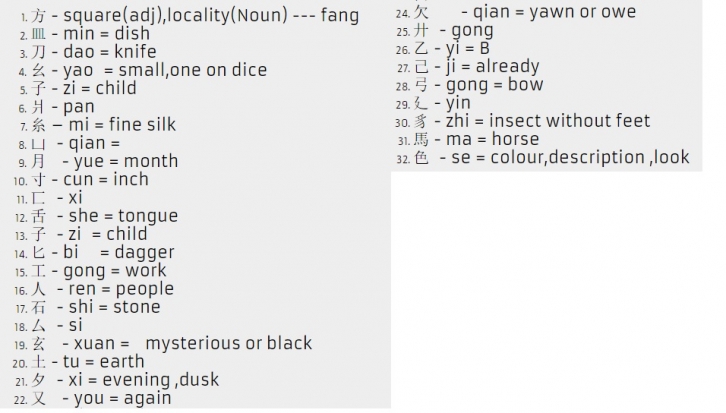
the alphabetical order of the characters are purely based on hindi morphological features or morphemes due to their similarities they are assigned phonetics ... but actually they are different sounds and meanings in chinese .... the given symbol "A" represents as horse but due to its shape similarity it can be recognized as A in hindi